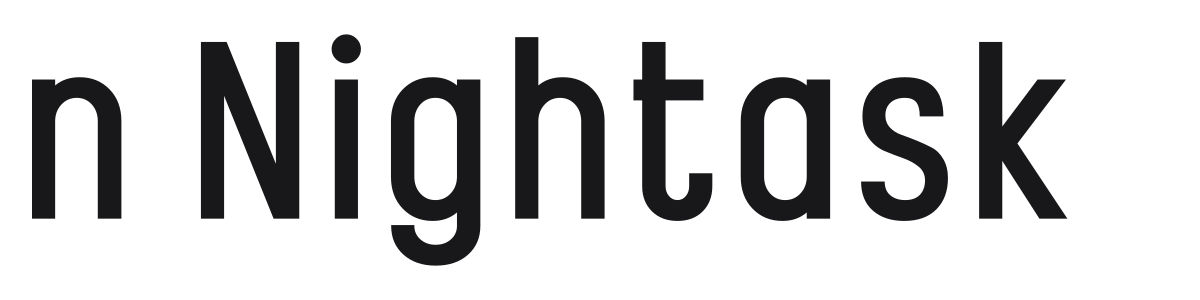
n Nightask
Nightask is a condensed geometric sans with softly rounded terminals and a clean monoweight stroke. It sits comfortably between rigid geometry and humanist warmth, making it versatile across both digital and print contexts. The narrow proportions pack well into tight spaces without feeling cramped.